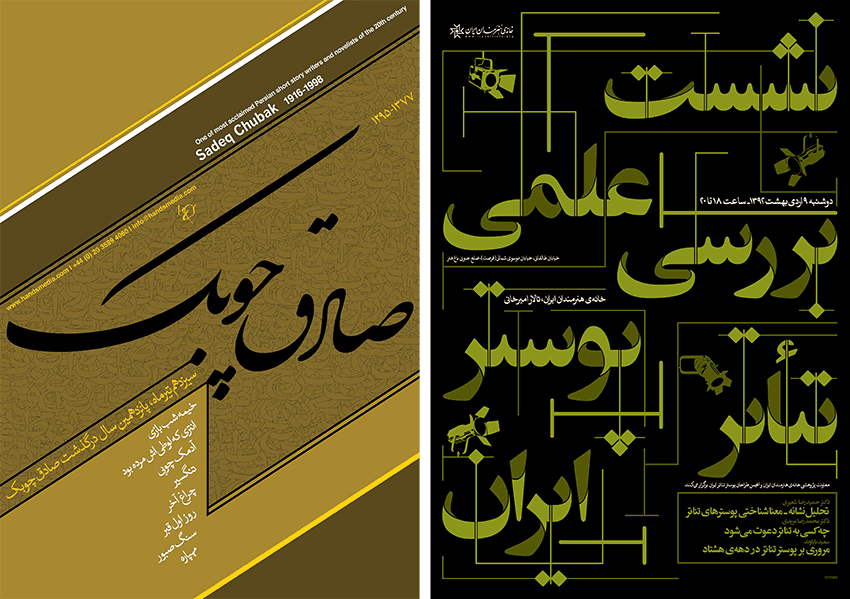
Left: Sadeq Chubak, Right: Scientific Meeting of the Iranian
Kourosh Beigpour received his Bachelor's in Art at the University of Tehran, and his Master's in Malaysia, where he worked on Persian-Arabic font design and generated new fonts based on manuscript. We were inspired by his beautiful posters and asked him to share them with us.
I am mainly inspired by Persian Calligraphy. I enjoy bridging between old and new styles of traditional calligraphy and contemporary typography and somehow mix them together.
Whenever I have a subject to design for, I get my main inspiration by the subject idea. If I have enough knowledge about the subject, I'll go with my own feelings and if not I'll try to get some information from the client and little bit of my own research.
The Sadeq Chubak poster was made in 2013 for H&S media based in UK. He’s was one of the famous novel writers in Iran who passed away in 1998 in Berkley. This poster was made to remember him and always honor his work as an Iranian writer. It was published on H&S media website, as well as print in the UK.
The poster made for Scientific Meeting of Iranian theater poster designs in Iranian Artist forum. It’s been printed in Tehran and the client was Iranian Theatre Poster Designers Society (ITPS).They had a conference about history and discussion of Iranian Theater Posters.
Left: Maurice Blanchot, Right: Omar Khayyam Neyshabouri
The Maurice Blanchot poster is actually one of my favorite subjects, I made this poster in an honor of Maurice Blanchot (a great French philospher and a writer) commemorating the 10th years since he passed away. This poster was published in Maurice Blanchot organization's web site.
Omar Khayyam was a great Persian polymath, philosopher, mathematician, astronomer and poet. This poster was designed for his birth anniversary last year and was published by H&S Media Publication.
My thought process depends on the subject, it’s more like a mind challenge. Sometimes I follow the rules and start with hand sketching and sometimes I already have the design set in my mind and I go straight to design. However, it's happened many times where I did the basic sketch, and when it came down to design all of a sudden a new ideas came a cross my mind and I end up changing the whole design. After all, what I've learned is that if I have the basic idea, I can always come up with better ideas to improve and of course, present a better design to client.